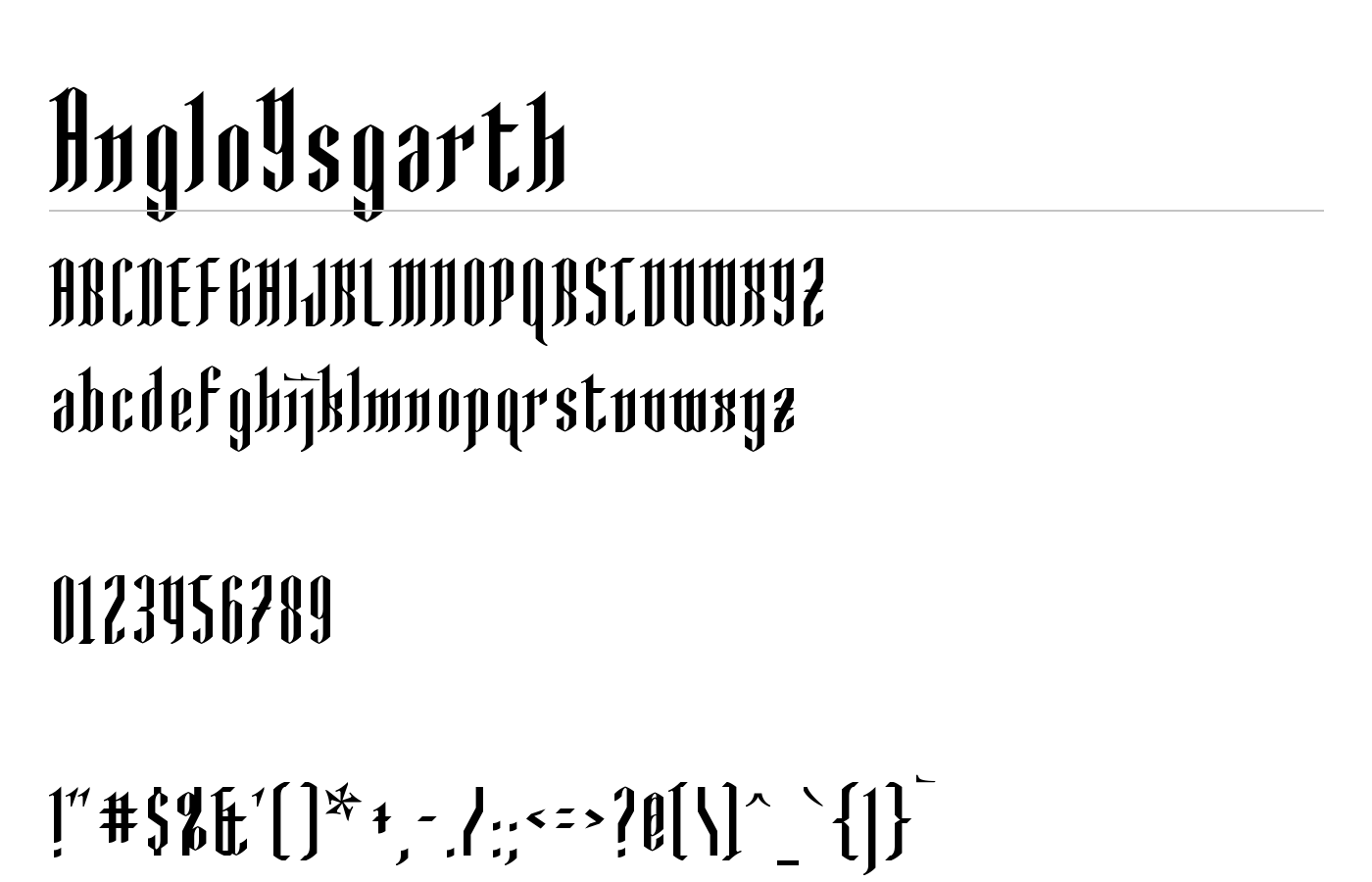
AngloYsgarth is a bold blackletter serif font with a condensed, tall structure and sharp, angular strokes that evoke a historic medieval or gothic vibe. Its high contrast and intricate letterforms make it ideal for dramatic headlines, branding, or projects seeking an old-world, vintage feel with a strong, commanding presence. This font works best where a striking, ornamental look is desired, such as logos, posters, and editorial designs.
AngloYsgarth Font
About AngloYsgarth Font